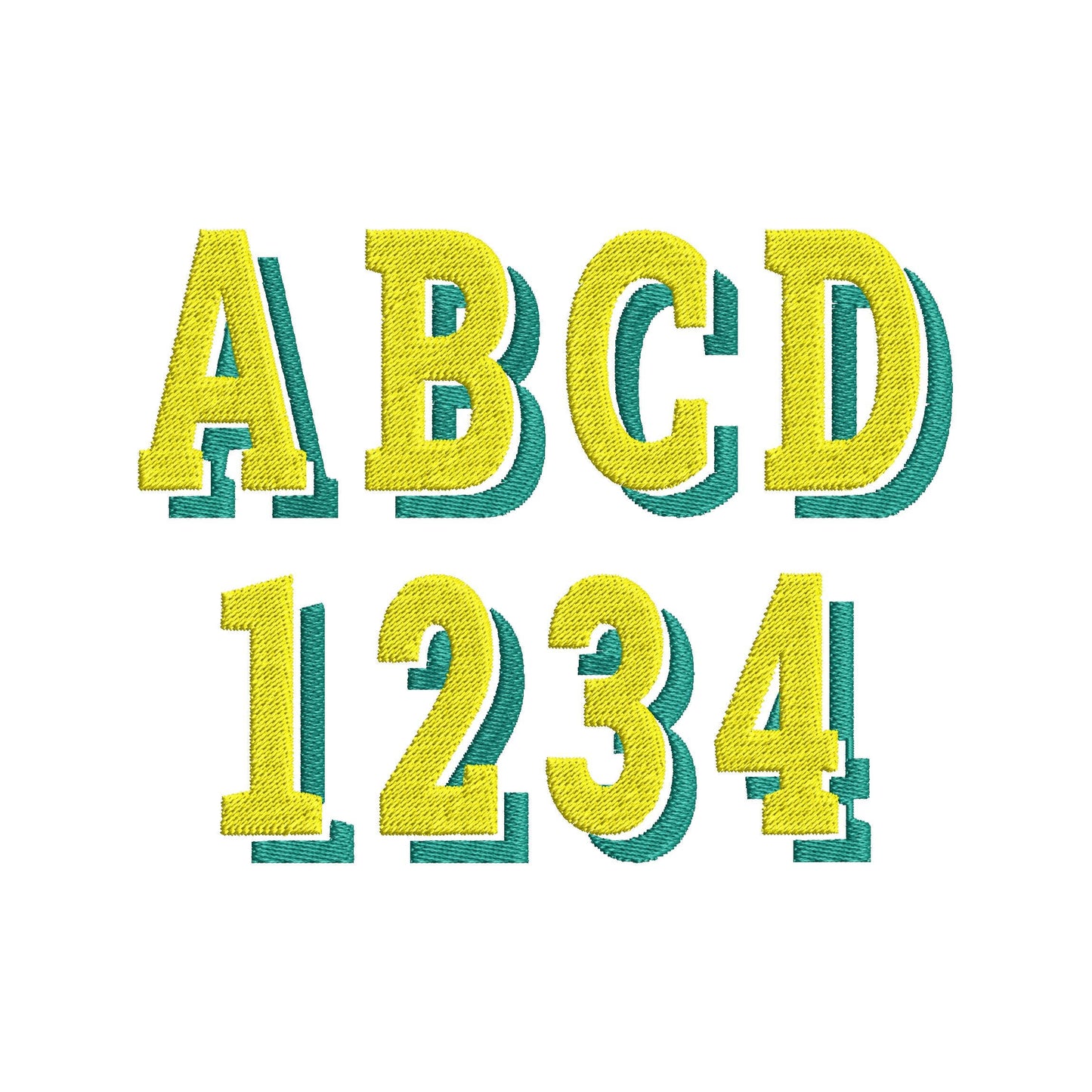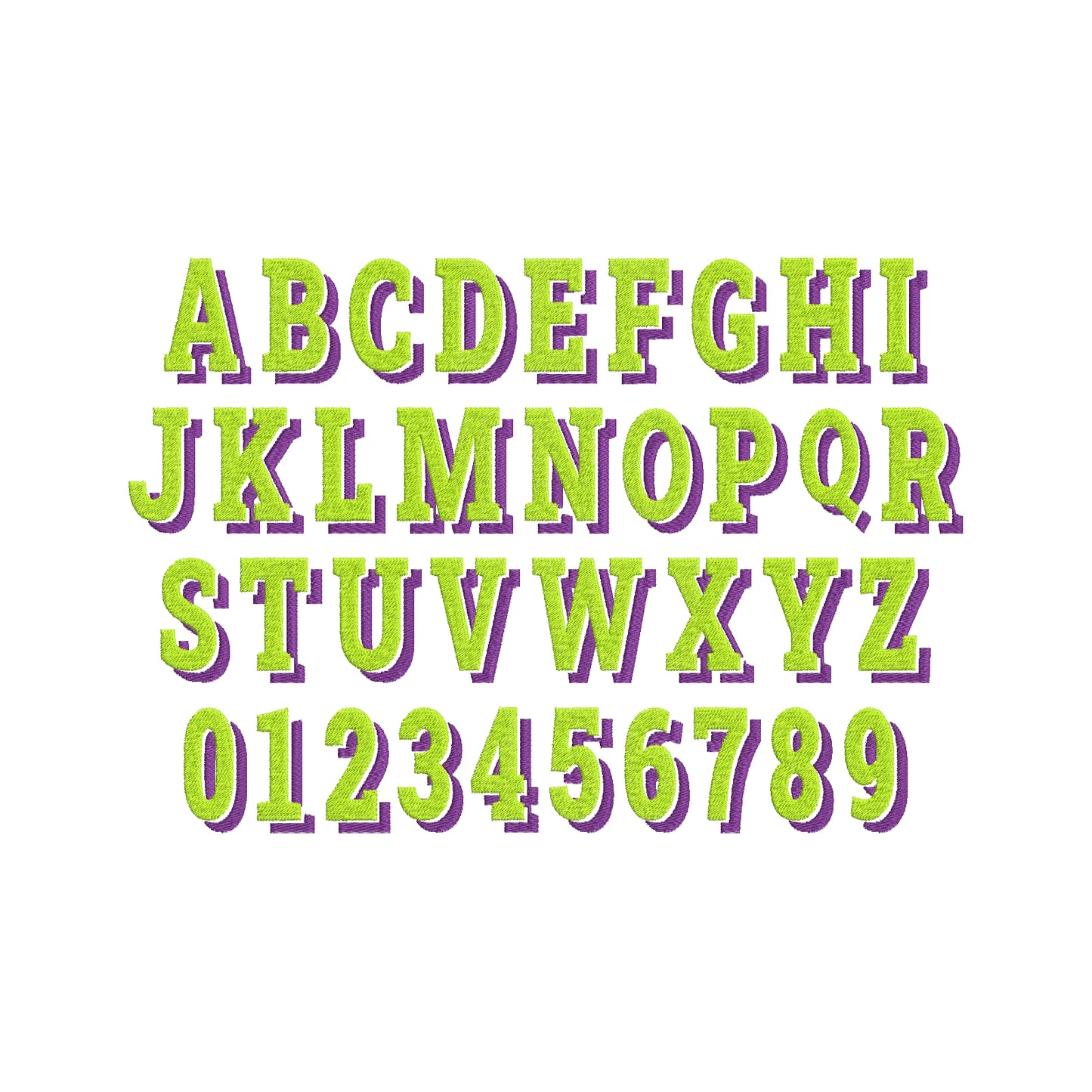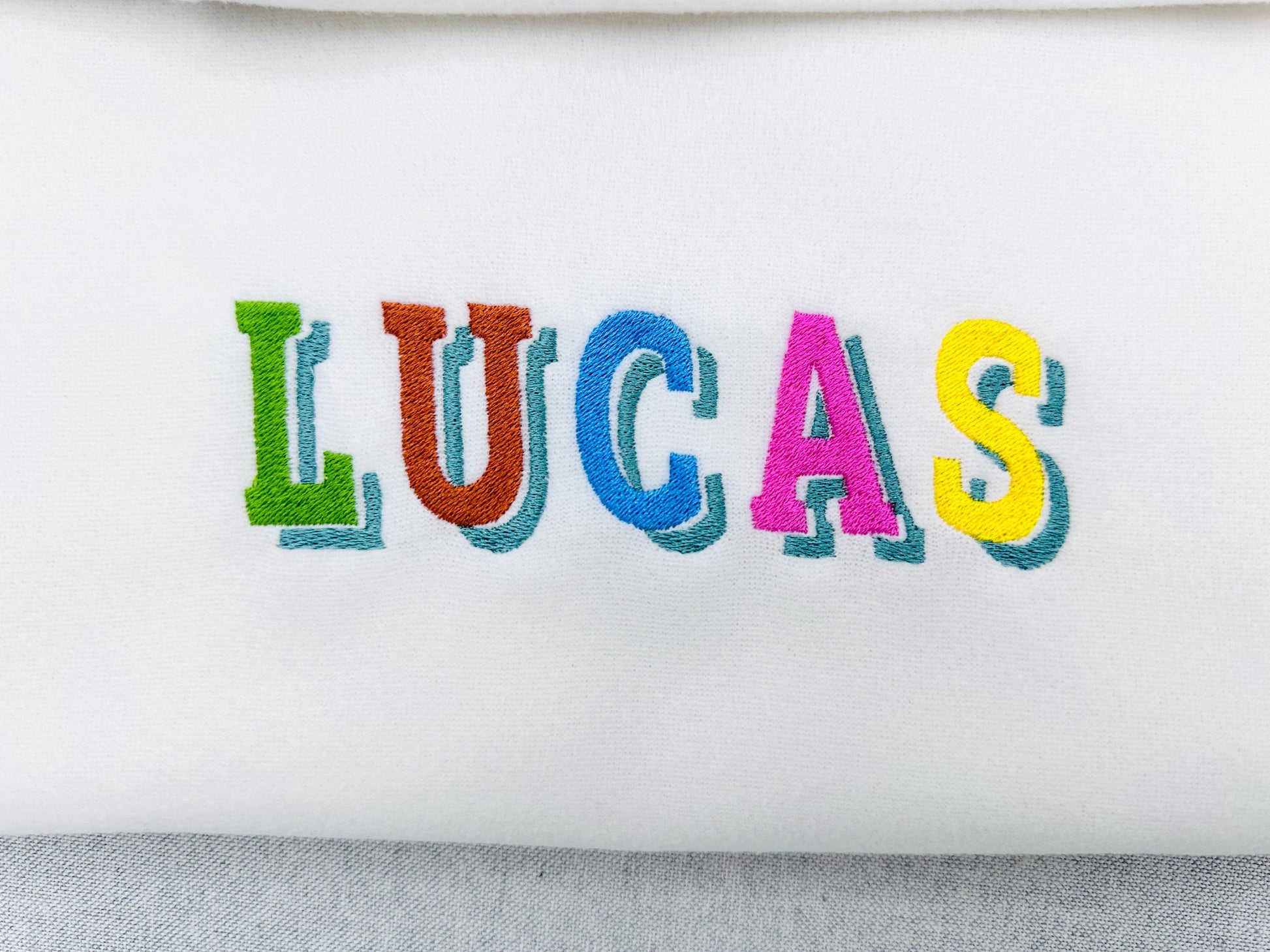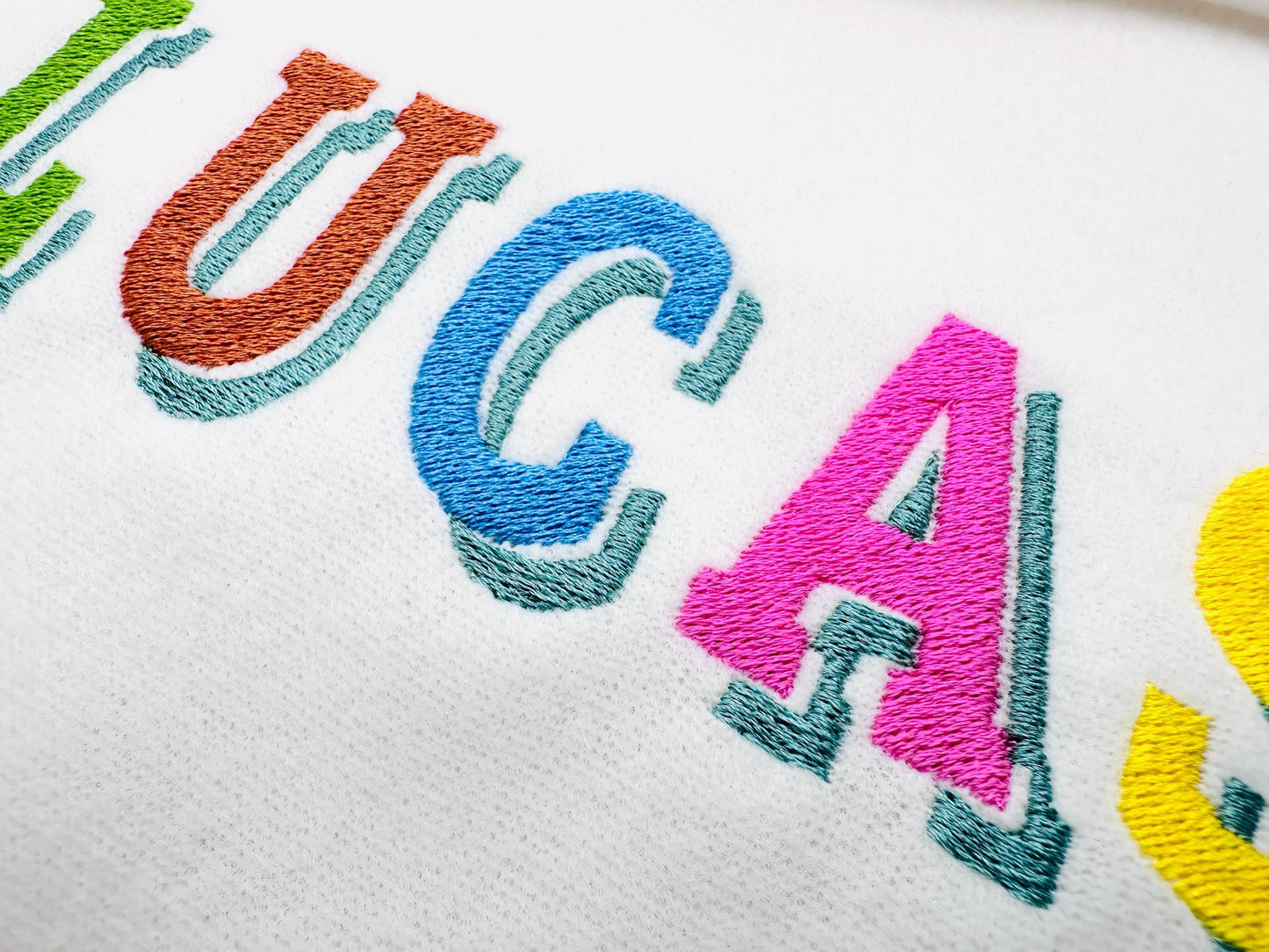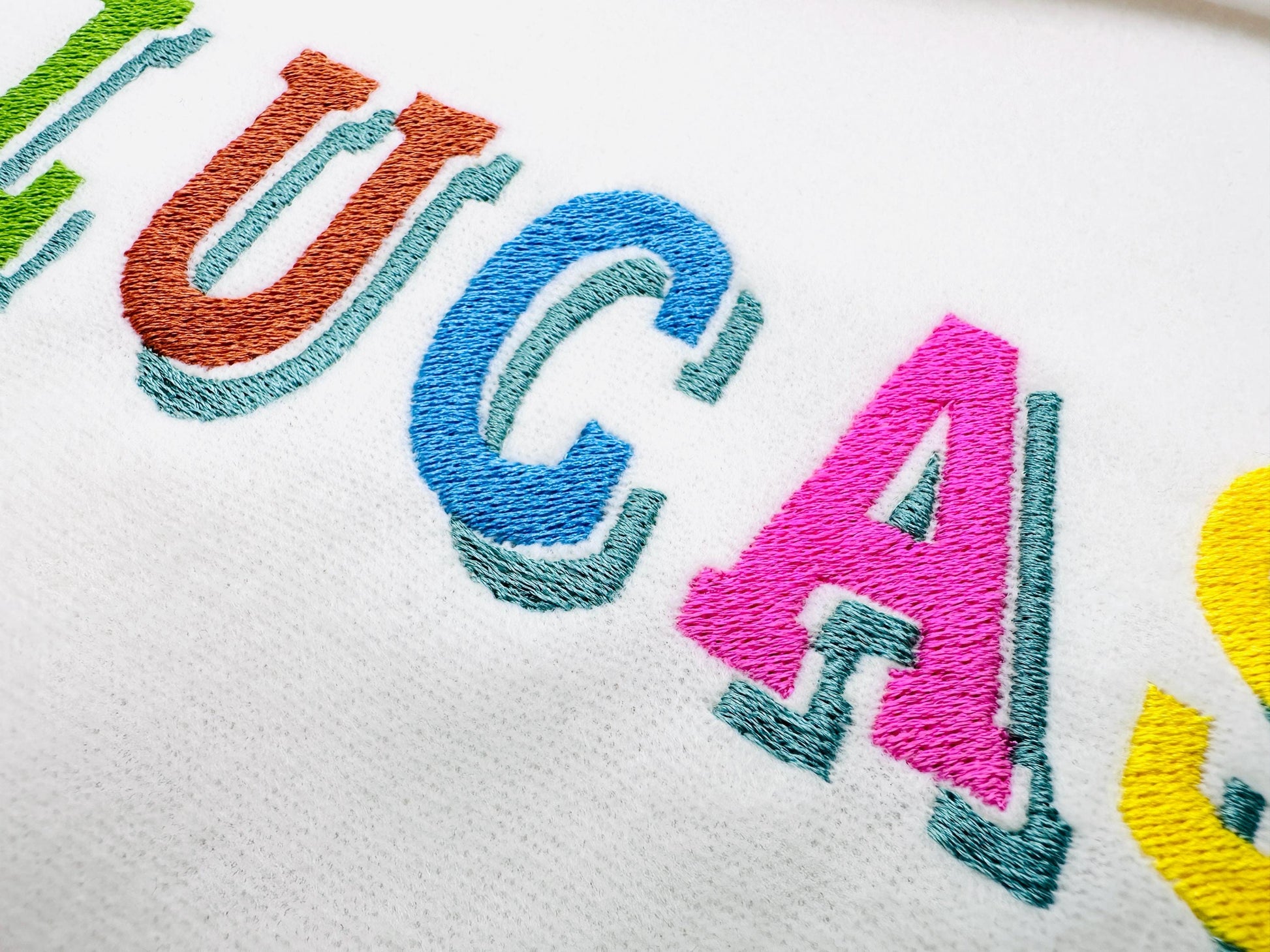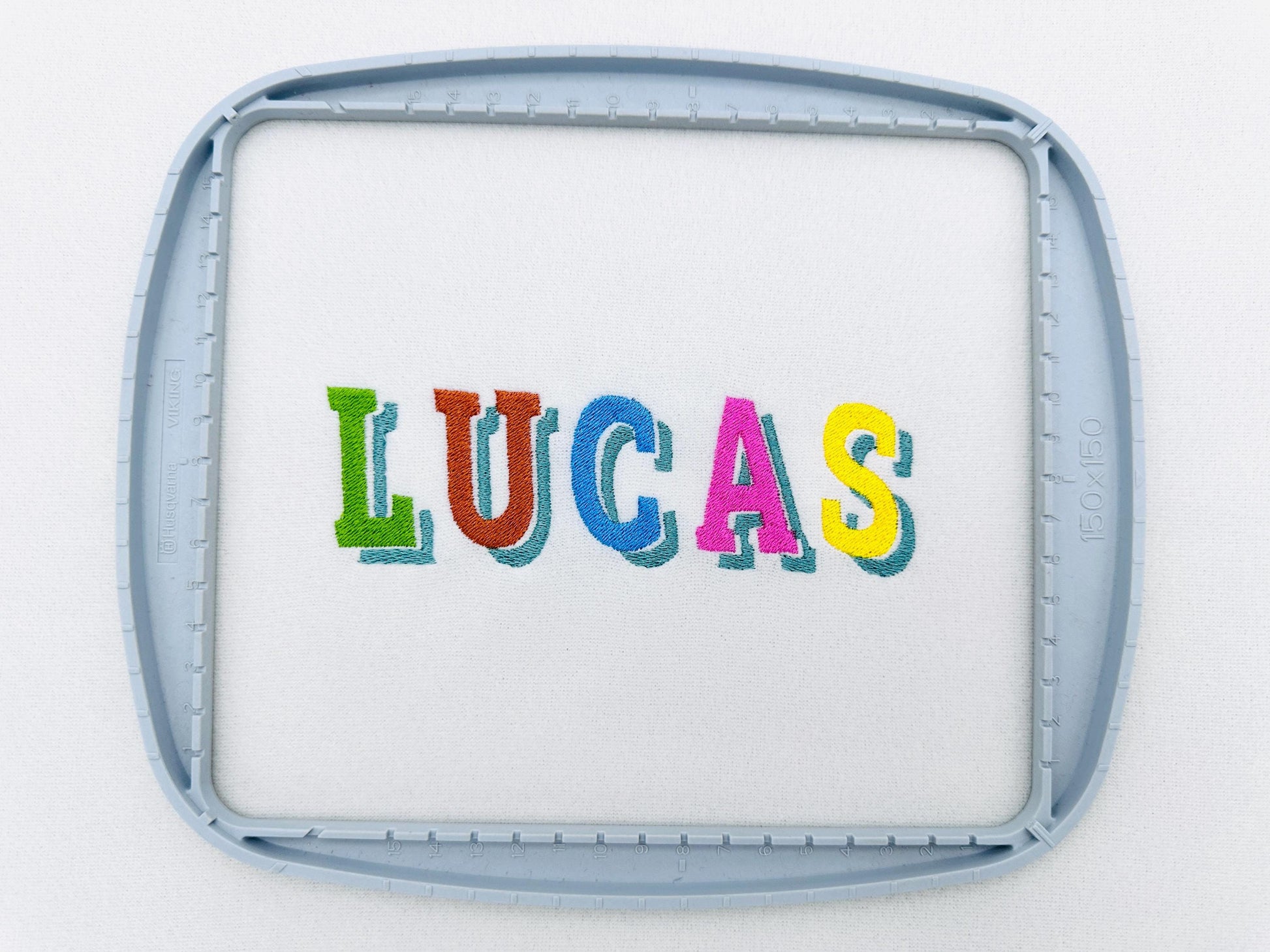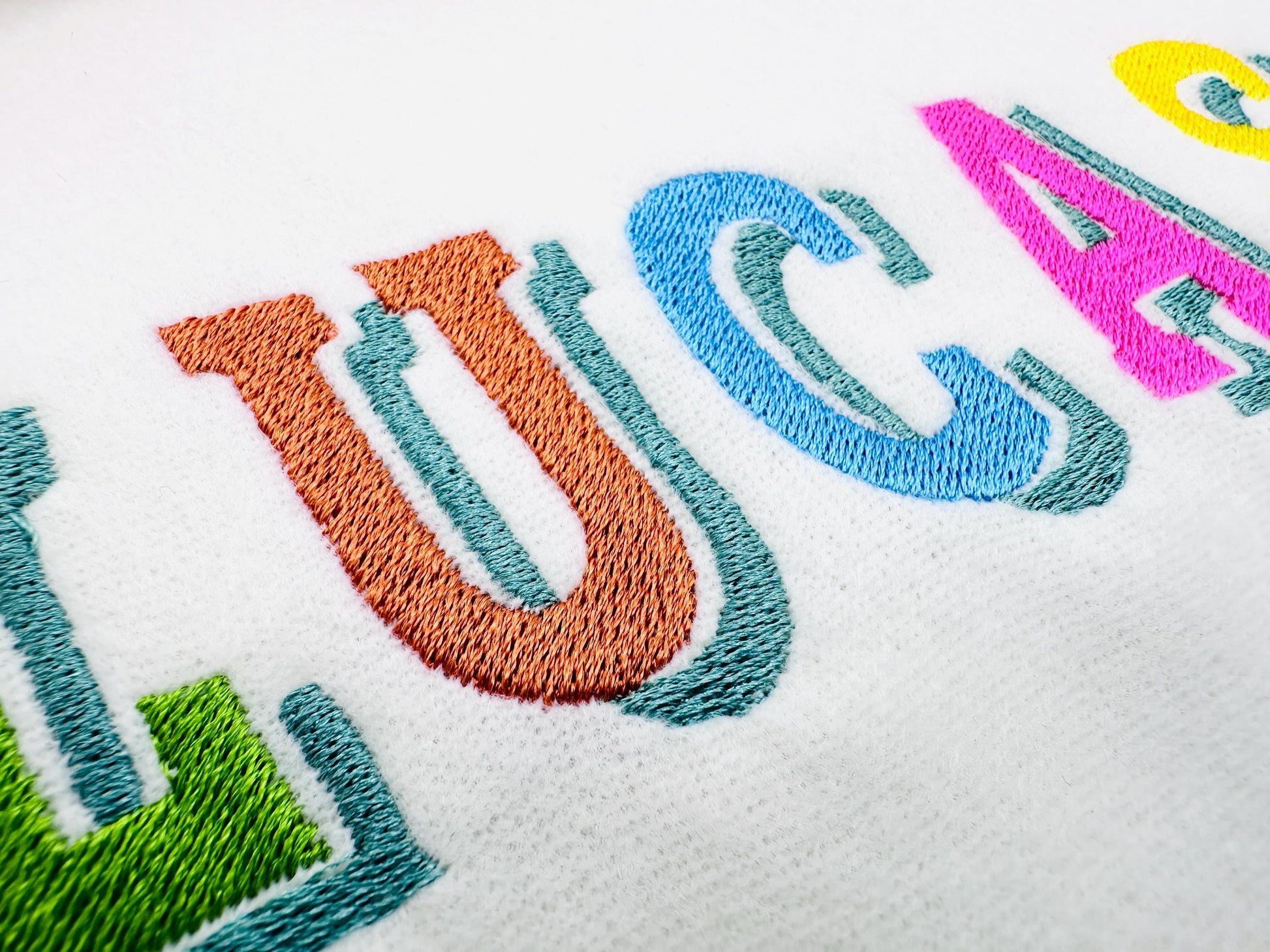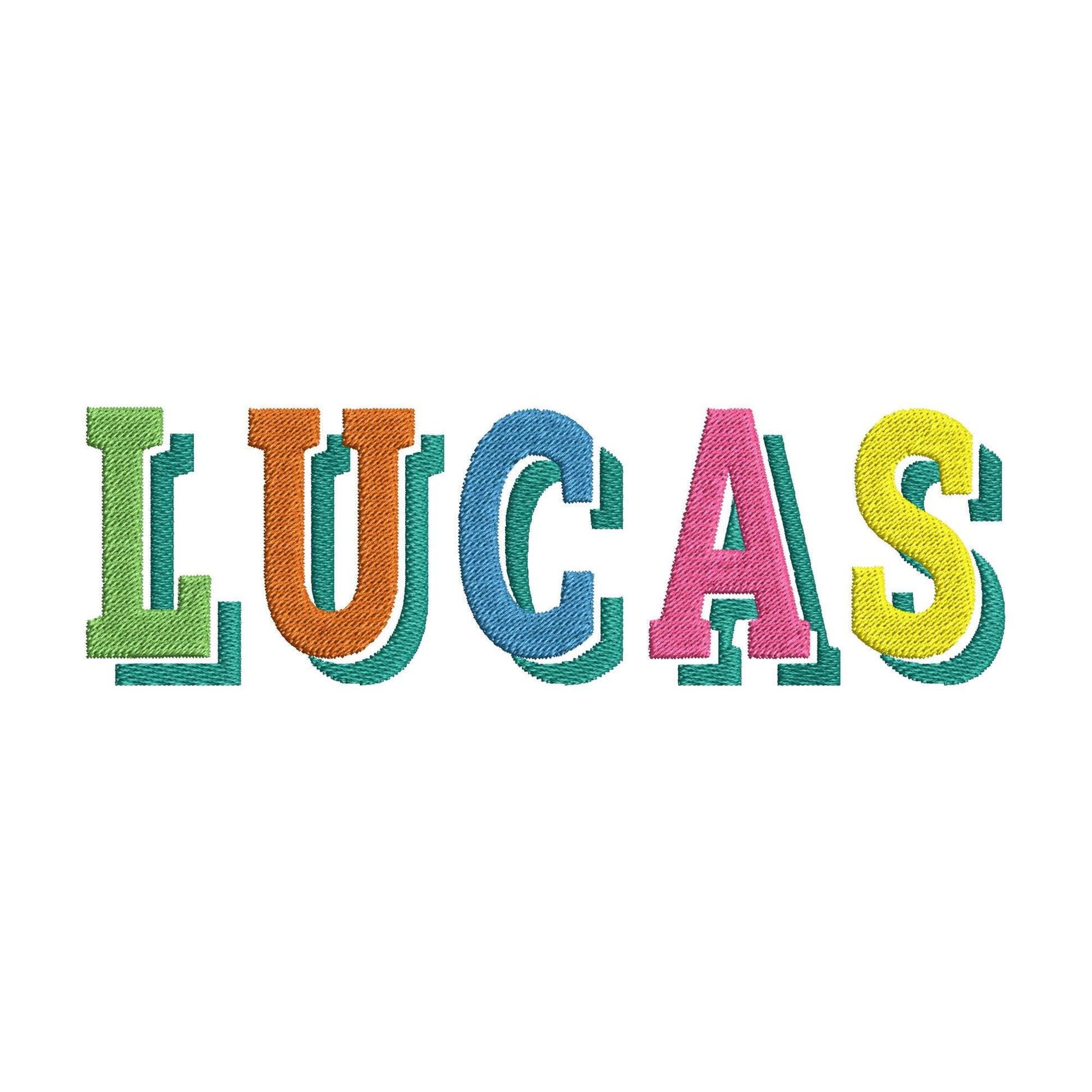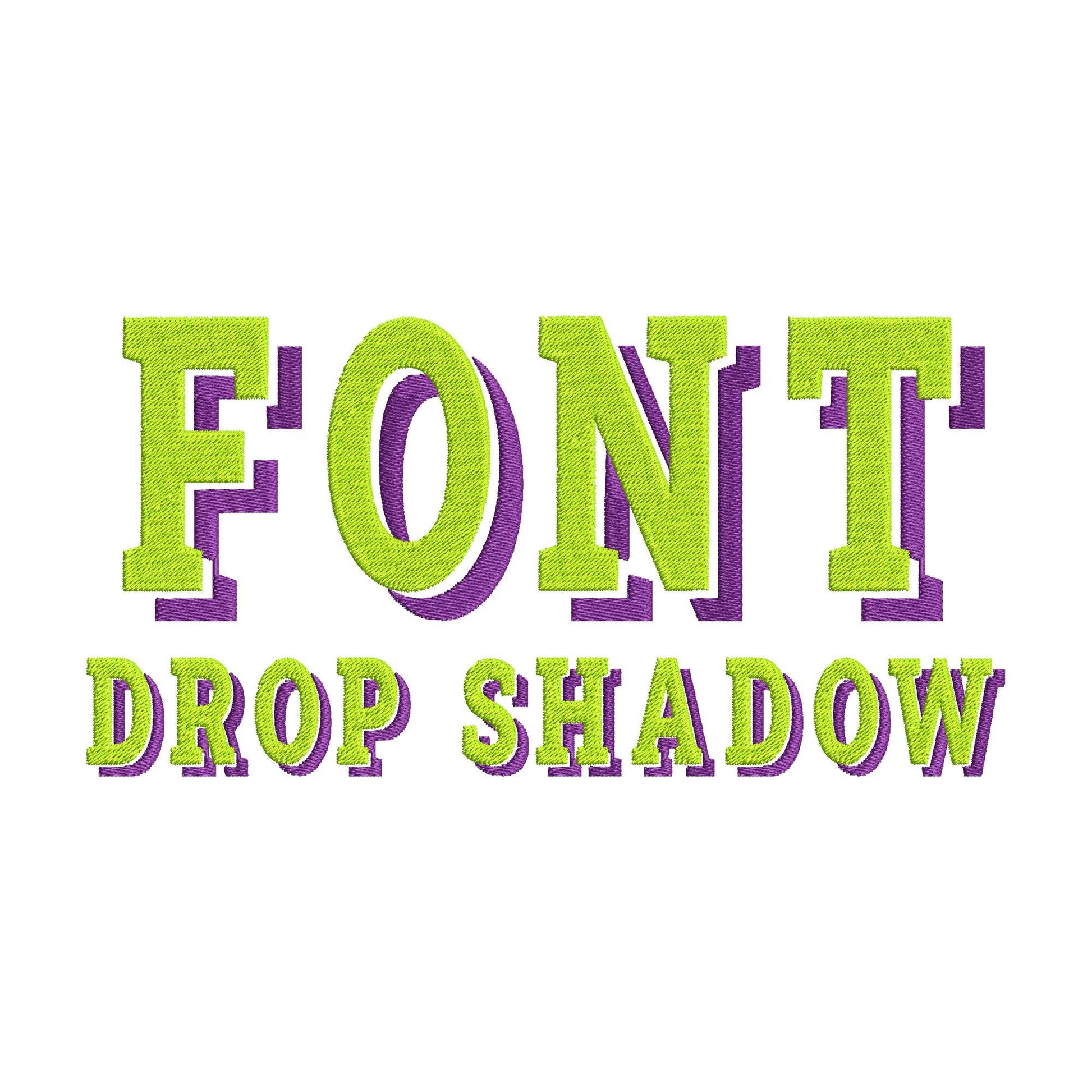
Block Drop Shadow Font
Block fill stitch letters with a drop shadow, 3 inches tall. Includes uppercase letters A to Z and numbers 0 to 9.
- Drop shadow block font, fill stitch
- Uppercase A to Z, numbers 0 to 9